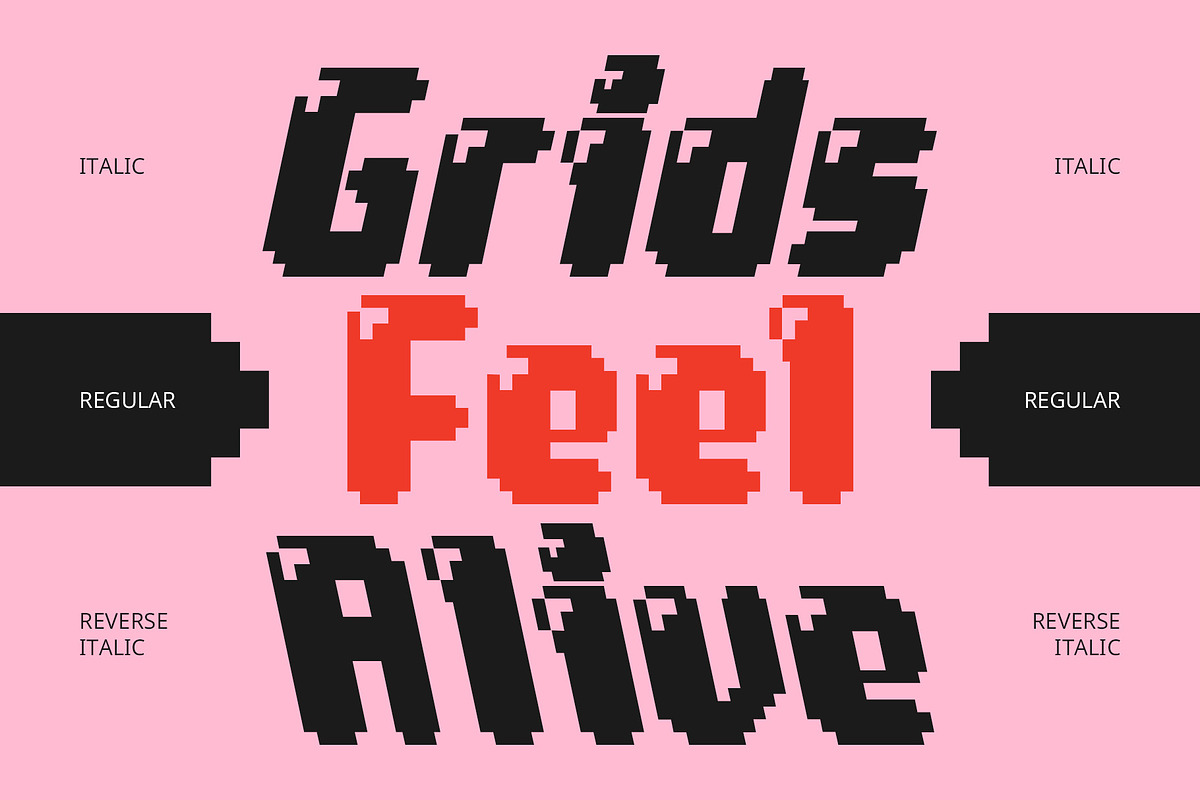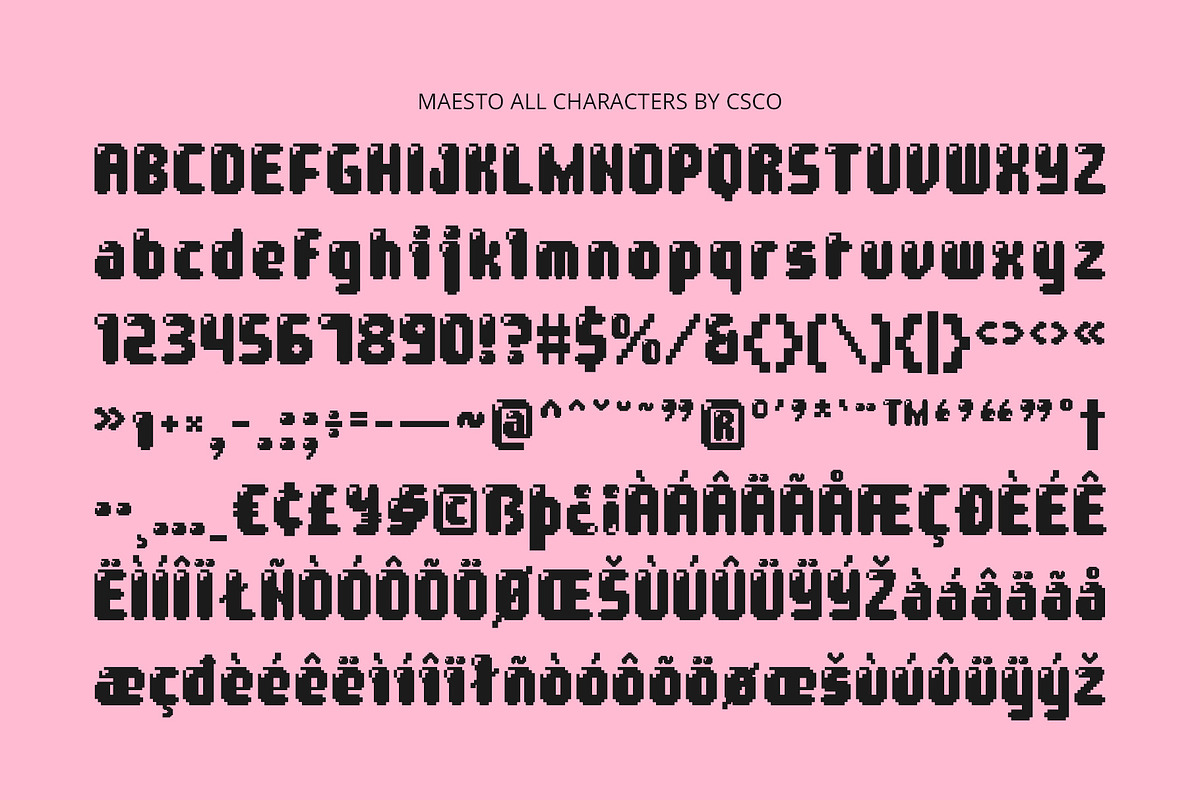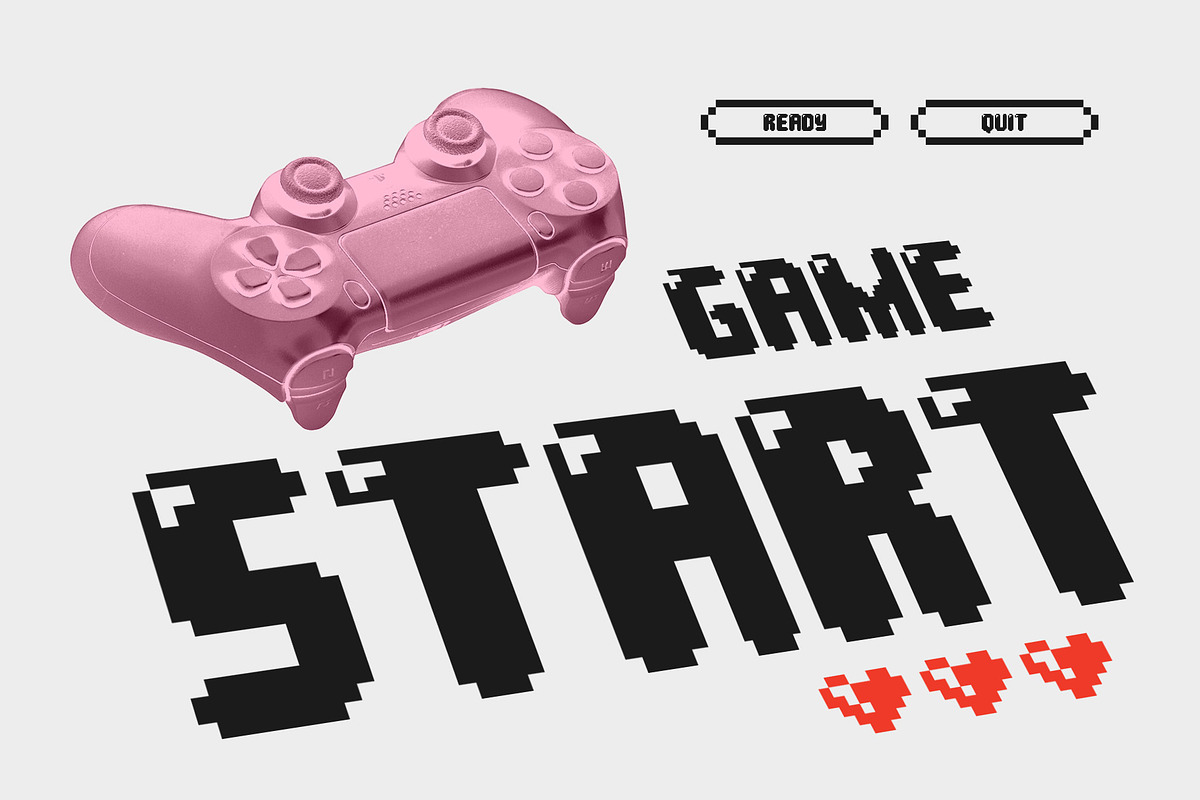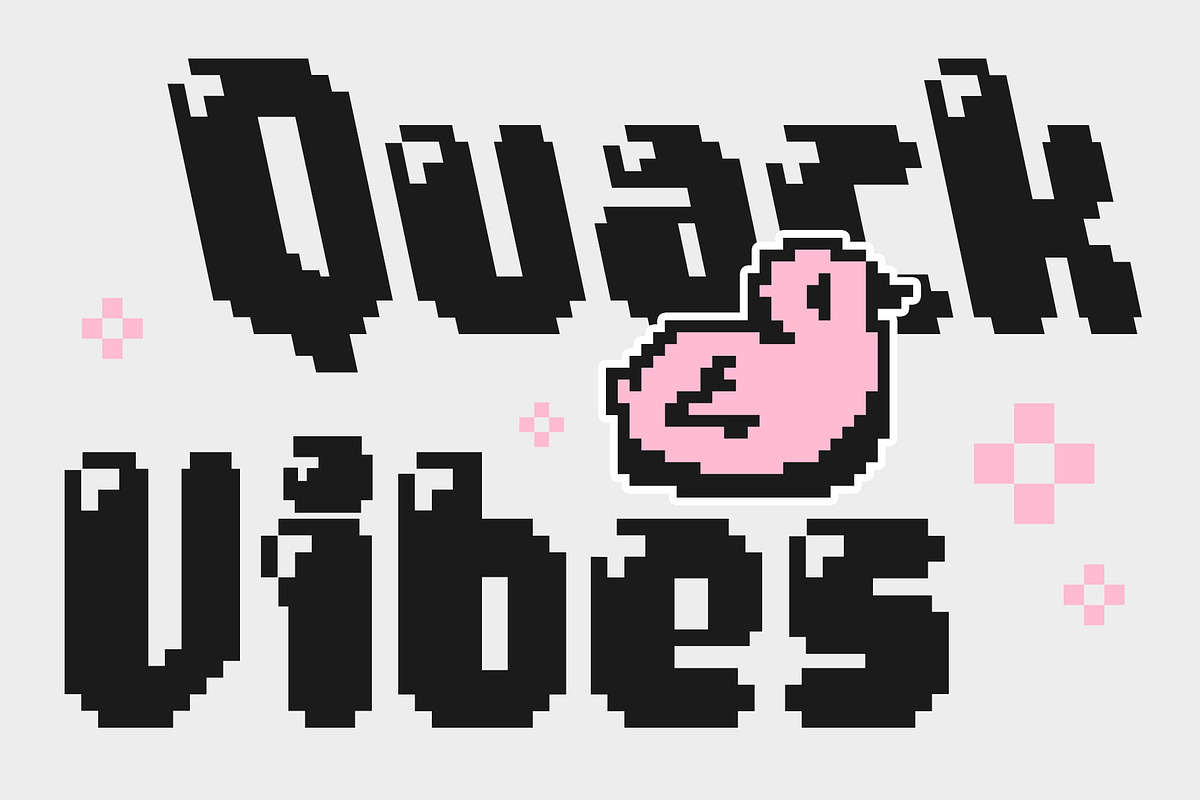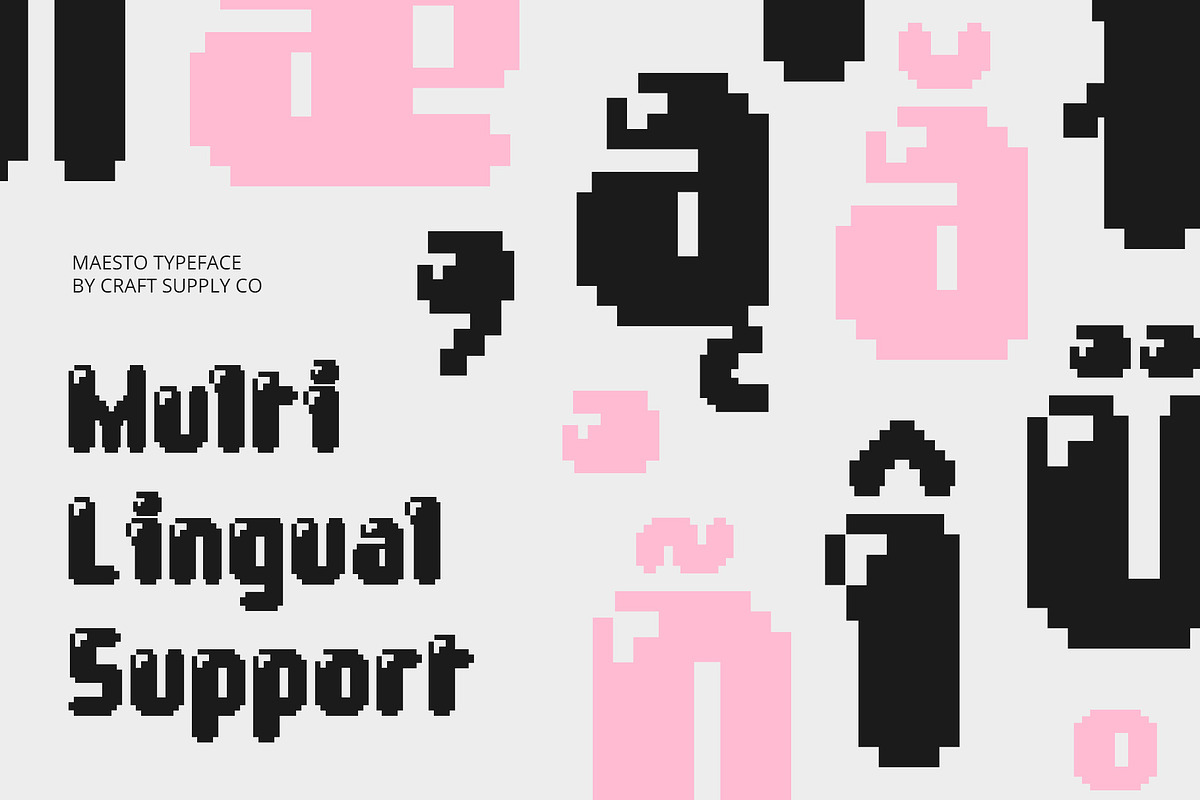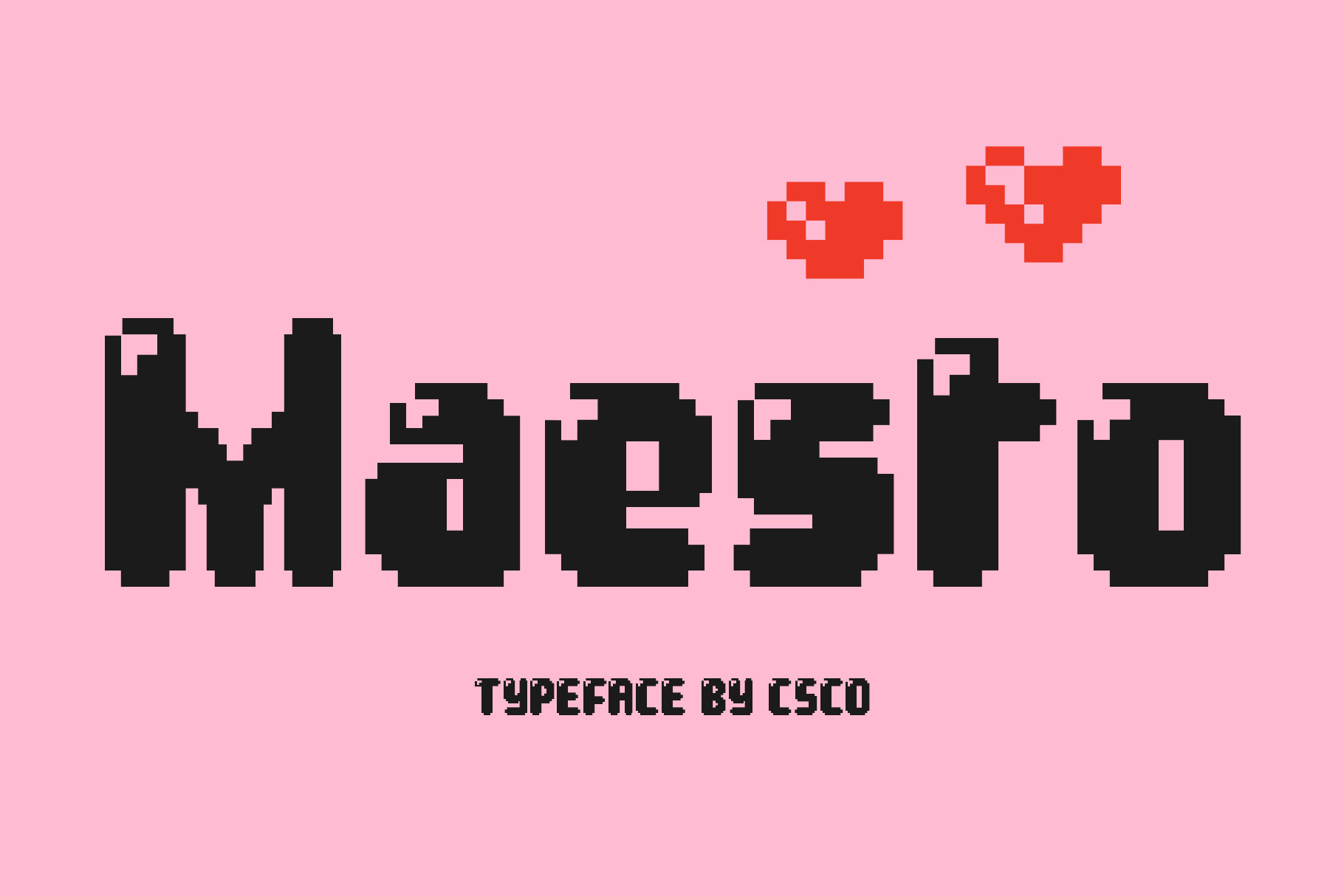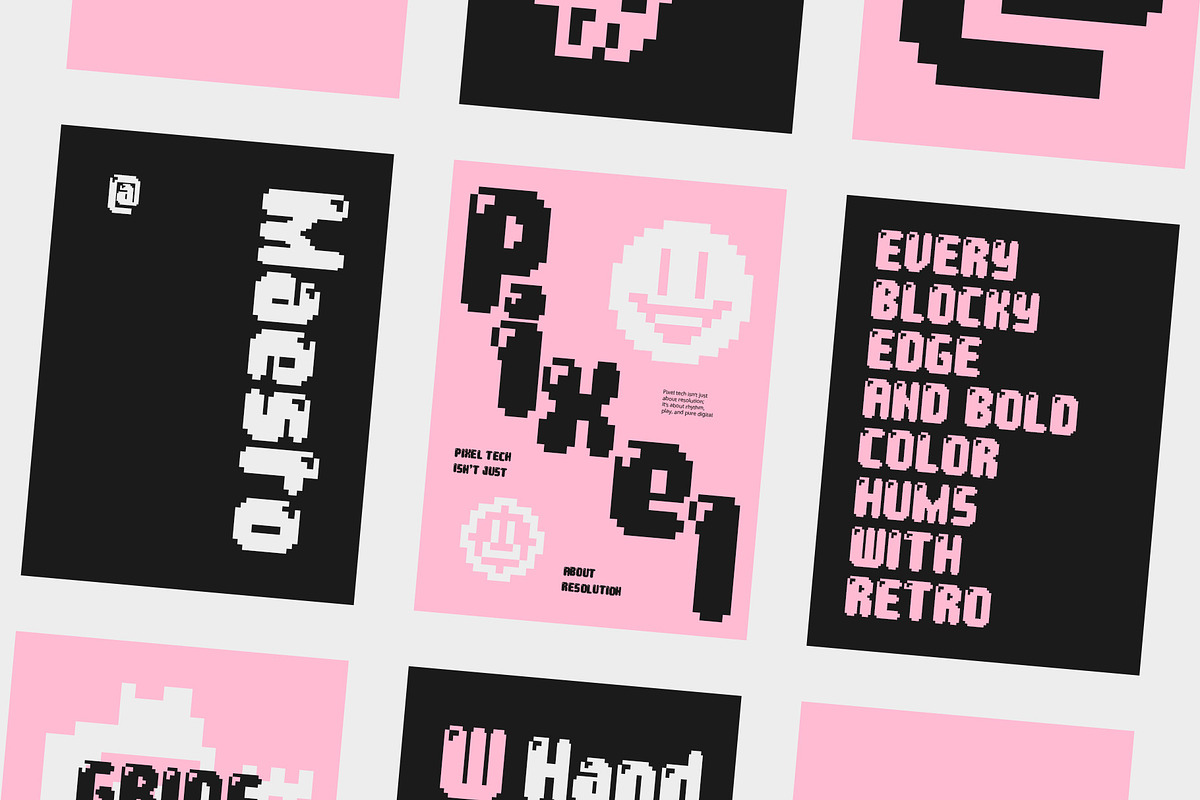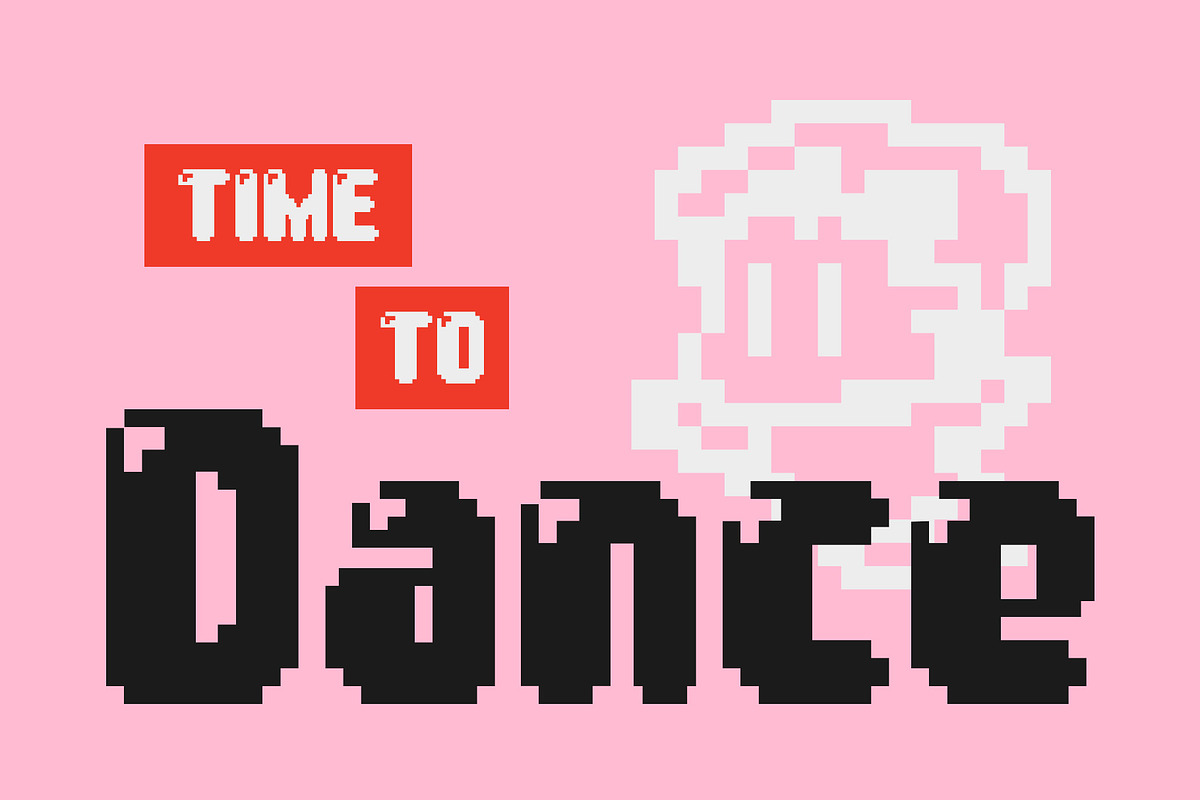
Maesto – Pixel Font
Maesto Font – Chunky Pixel Power with Retro Vibes
Retro 90s Digital Aesthetic Maesto is a bold pixel display font that brings back the vibrant energy of the 1990s digital era. Its chunky, blocky letterforms capture the nostalgic charm of early computer graphics and arcade games, making it a perfect throwback for vintage-inspired designs.
Funky and Playful Pixel Style With its strong pixelated shapes and funky style, Maesto adds a playful and energetic vibe to any project. The font’s unmistakable pixel-art look conveys fun and youthfulness, making it ideal for creative, dynamic, and bold visual statements. The funky character of Maesto adds a sense of fun and approachability to any project. Its exaggerated proportions and pixel-perfect construction bring personality and rhythm to your text, making it perfect for headlines and graphics that need to pop with attitude and excitement.
Perfect for Gaming and Youth-Oriented Projects Designed with gaming and pop culture in mind, Maesto is perfect for posters, game interfaces, digital artwork, and any design that seeks to evoke a sense of nostalgia and excitement. Its bold presence ensures that text stands out with clarity and character.
Ideal for Vintage Digital and Energetic Designs Whether you’re creating retro-themed branding, promotional materials, or experimental graphics, Maesto delivers a pixel-perfect balance of vintage digital aesthetics and modern design energy. It’s a must-have font for designers wanting to blend nostalgia with bold creativity.